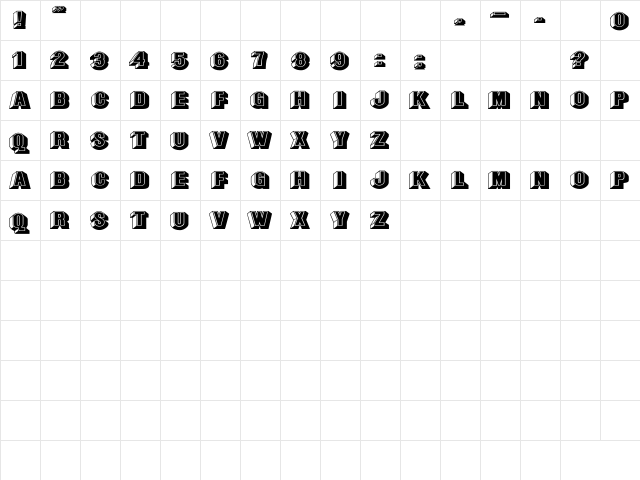
Savannah Fat Wd Regular
Design Context for Savannah Fat Wd Typeface
Savannah Fat Wd is a composed and adaptable typeface that performs quietly and consistently across a wide range of design contexts.